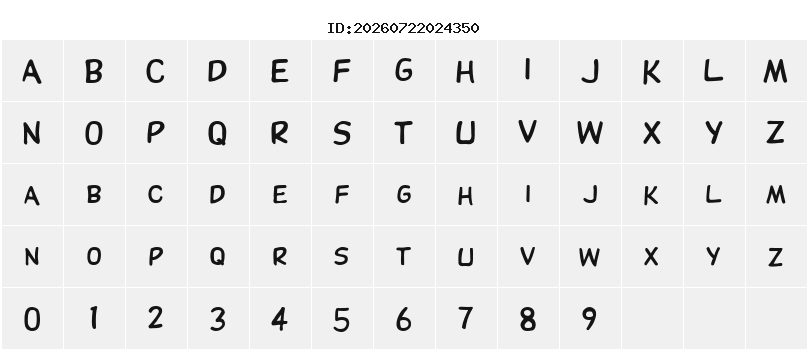
FZ BASIC 28 COND.ttf is a modern, elegant sans-serif font designed for ultimate readability and visual harmony. Perfect for branding, headlines, web design, and print materials.